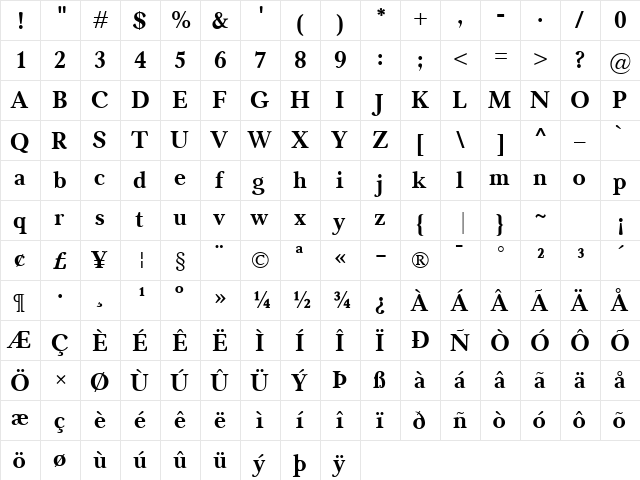
Carniola Bold
Design Context for Carniola Typeface
Carniola offers clean, dependable letterforms without strong stylistic allegiance, making it a practical choice for designers who need flexibility. Its bold stroke weight gives it real presence on the page.